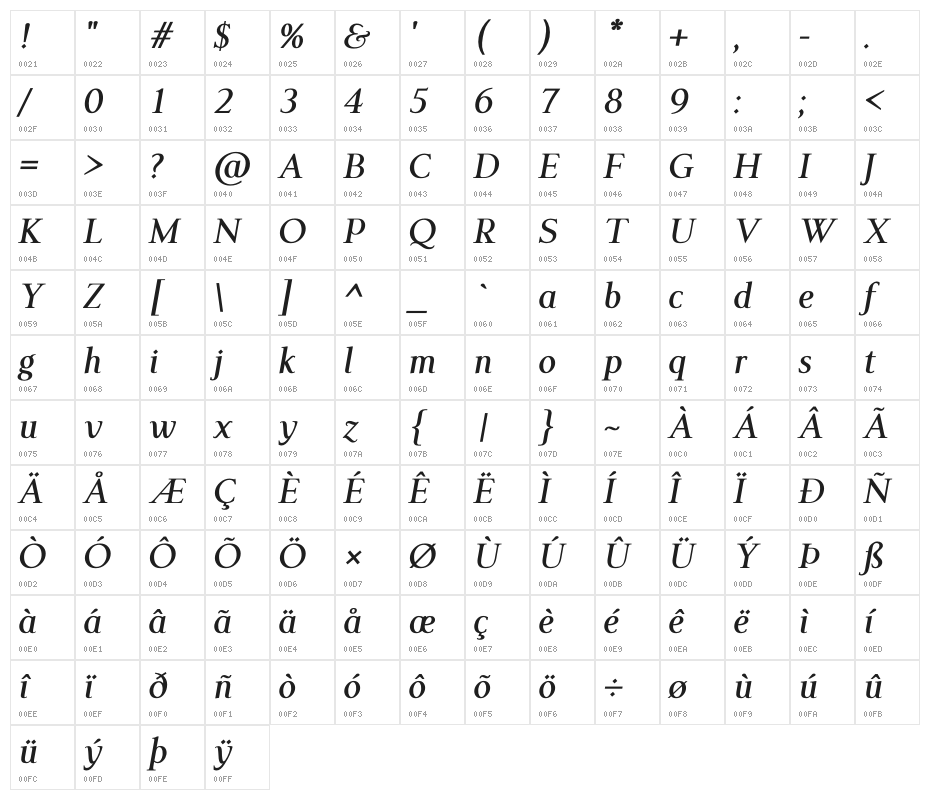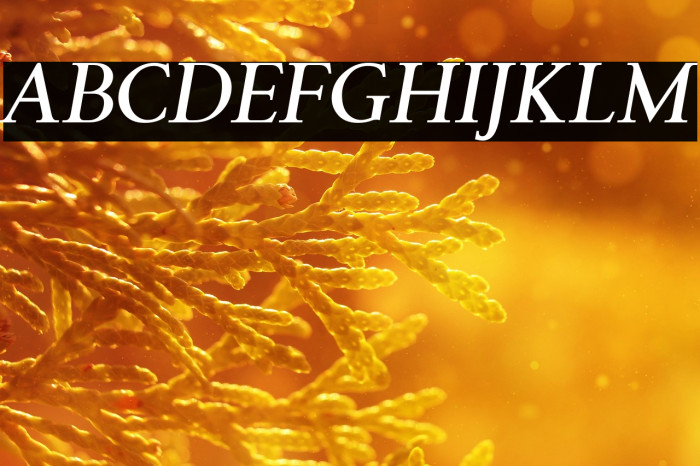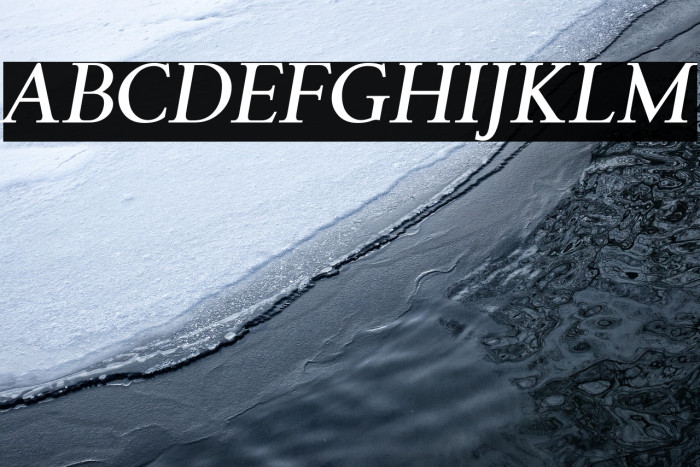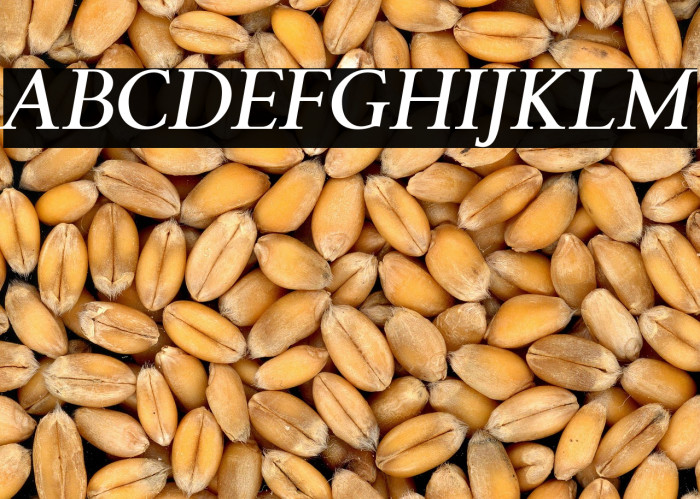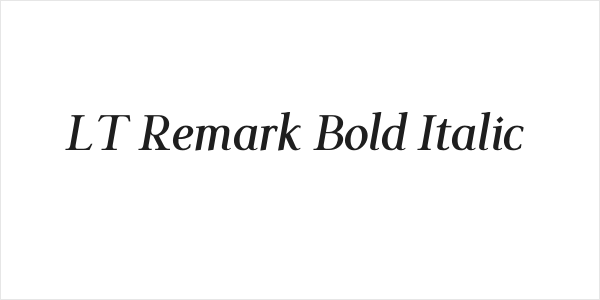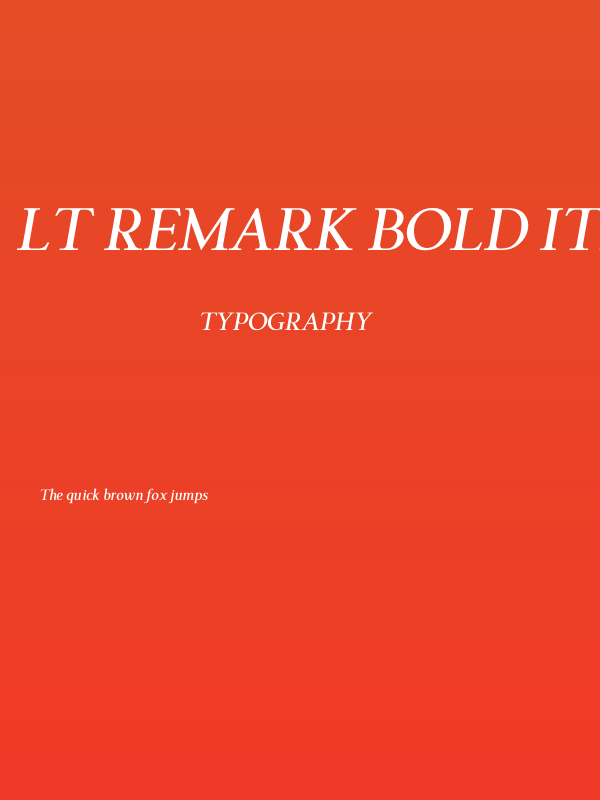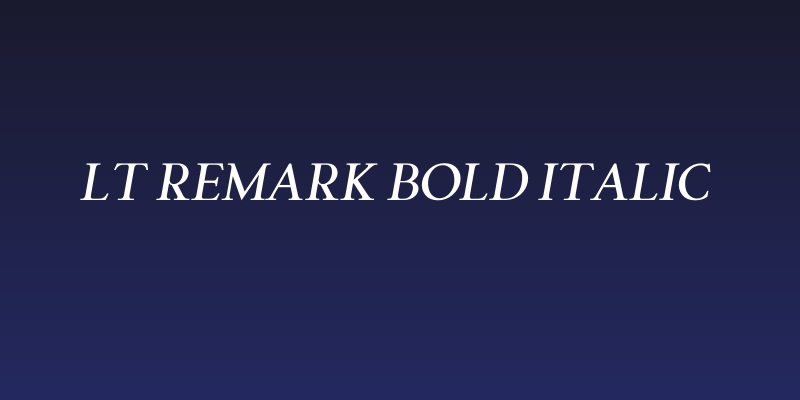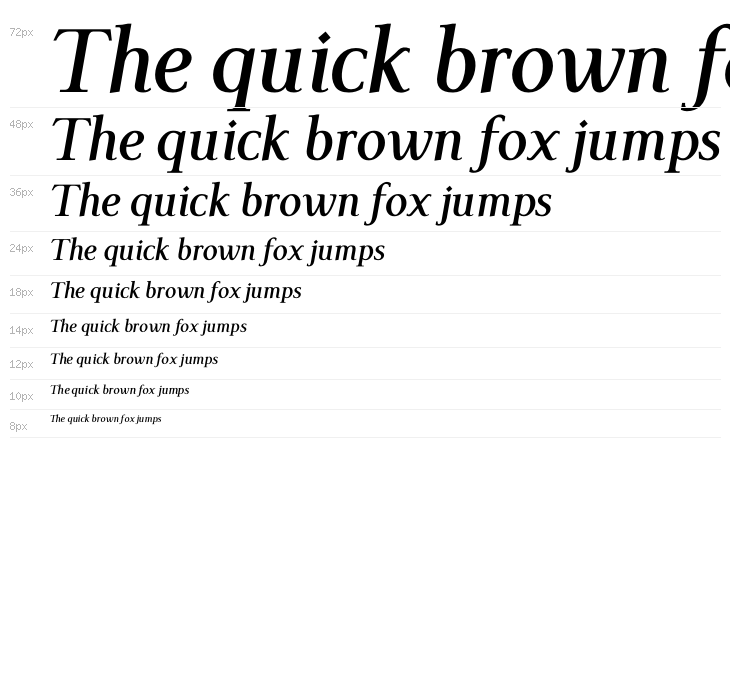
LT Remark Bold Italic Font
LT Remark Bold Italic Description
This font exhibits a classic serif style with a bold and italicized appearance, providing a sense of elegance and sophistication. The characters are well-defined with a slight slant, enhancing readability while maintaining a formal tone. The uppercase letters are tall and commanding, while the lowercase letters offer a smooth, flowing look. Numerals are consistent with the overall style, ensuring clarity and balance. Special characters are distinct and harmonize well with the alphabetic characters, making this font versatile for various applications.
| Use Case | Headlines, Editorial design, Branding |
| Proposed Projects | Ideal for projects requiring a touch of sophistication, such as formal invitations, editorial design, branding for luxury products, and elegant website headers. |